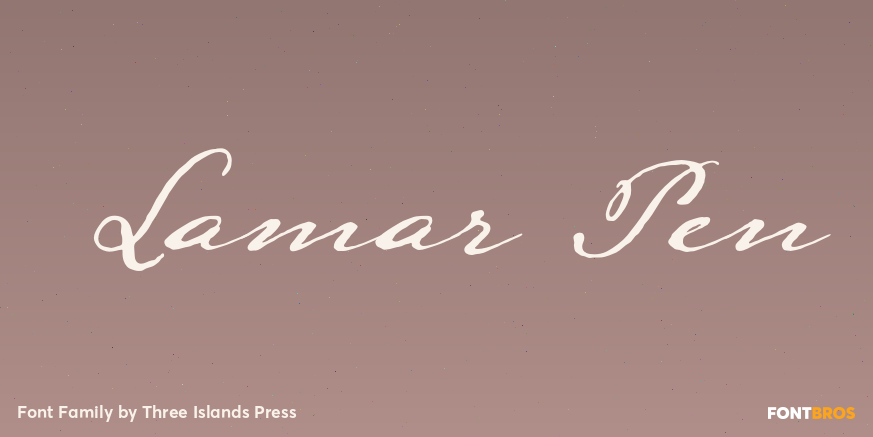
Lamar Pen
Mirabeau Buonaparte Lamar had an exotic name for a historic Texan, but he left his mark beginning in 1836, the year of Texas independence. Lamar went on to become the young republic\’s first elected vice-president (to President Houston) and second president…